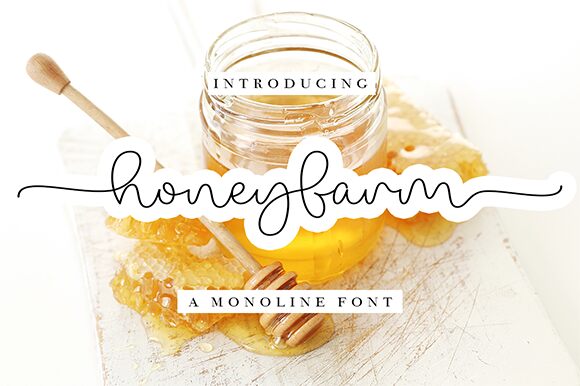
Honey Farm
Honey Farm font is a handwritten font by Wahyu Studio with a casual and easy-going style. Underlined by a relaxed aesthetic, its characters form the alphabet in an almost child-like manner that adds immensely to the friendly nature of the font.
Each letter looks like it was carefully drawn using slight pressure and weight where needed. With light letters all around, Honey Farm can be used in script kids books, stories, invitations, food brands projects, personal brand promotional material. It’s free and also suitable for relaxed wedding designs and print elements like cards or posters.